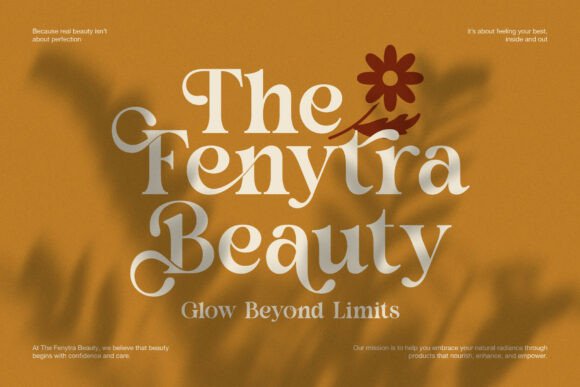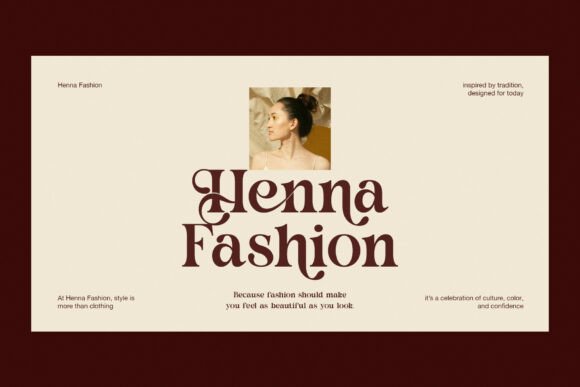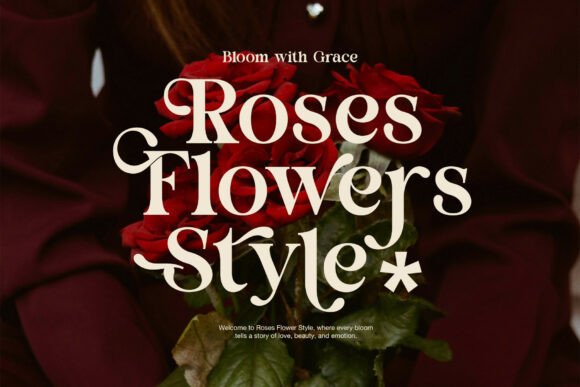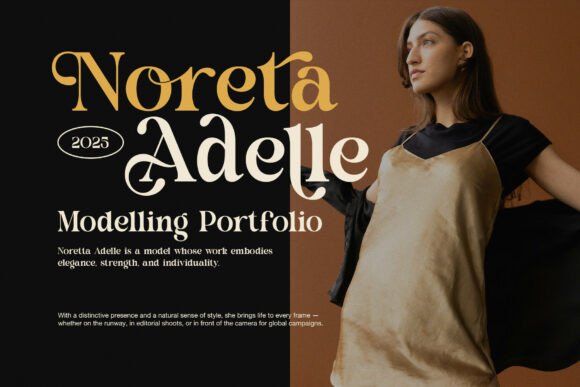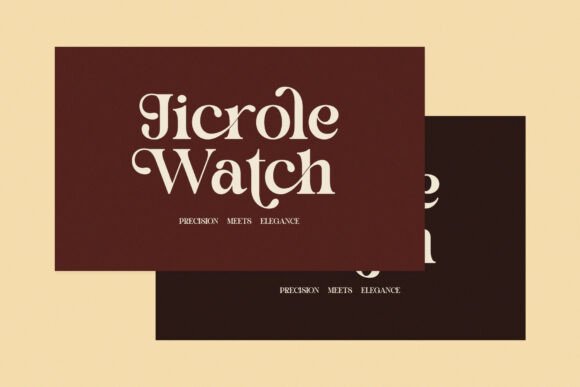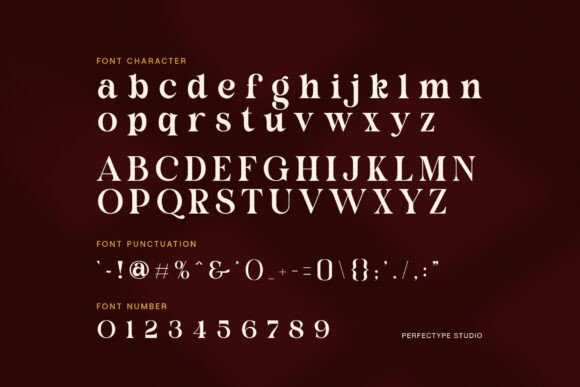
Introducing Domick Font: Elevate Your Design with Elegance and Simplicity
In the world of typography, a well-crafted font can make all the difference in conveying the intended message and aesthetic of a design. For designers and crafters seeking a typeface that embodies warmth, balance, and refined simplicity, Domick Font is an excellent choice. This elegant serif font is specifically designed to bring a touch of sophistication and calmness to various design projects, making it an ideal selection for those who value visual storytelling.
The Inspiration Behind Domick Font
Domick Font draws inspiration from modern editorials and calm visual storytelling, reflecting a perfect blend of classic and contemporary design elements. The creators of Domick aimed to craft a typeface that not only pays homage to traditional serif fonts but also incorporates smooth curves and gentle contrast. This thoughtful design approach results in typography that feels tasteful, relaxed, and quietly confident, making Domick suitable for a wide range of applications.
Key Features of Domick Font
One of the standout features of Domick Font is its soft letterforms that flow naturally across words and sentences. This smooth rhythm is crucial in creating an inviting and approachable feel, especially in headlines. Unlike rigid typefaces that can come off as formal or intimidating, Domick’s gentle flow makes it perfect for designers looking to add a touch of warmth and personality to their work.
Another significant advantage of Domick Font is its readability. Even when used in longer paragraphs, the font remains clear and easy to read. This versatility allows designers to apply Domick to both display text and supporting content with ease, making it a practical choice for a variety of projects, from editorials and magazines to websites and marketing materials.
Blending Classic Structure with Modern Twists
Domick Font successfully blends the classic structure of serif fonts with modern twists, making it a unique addition to any designer’s toolkit. The classic serif structure provides a sense of tradition and reliability, while the smooth curves and gentle contrast inject a modern and fresh feel. This blend of old and new results in a typeface that feels both timeless and contemporary, offering the best of both worlds.
Applications of Domick Font
The applications of Domick Font are vast and varied. Designers can use it to create elegant and sophisticated editorials, attention-grabbing headlines, and even detailed body text. The font’s versatility makes it suitable for both digital and print projects, including:
• Magazines and newspapers
• Websites and blogs
• Marketing materials and brochures
• Packaging and branding
• Editorials and novels
Why Choose Domick Font?
For designers and crafters looking for a typeface that combines elegance, simplicity, and readability, Domick Font is an excellent choice. Its unique blend of classic and modern design elements, along with its smooth rhythm and gentle contrast, make it a versatile and practical option. Whether you’re working on a high-end editorial, a sophisticated brand identity, or a compelling website, Domick Font can help elevate your design to the next level.
In conclusion, Domick Font offers a refreshing take on serif typography, bringing a sense of warmth, balance, and refined simplicity to the world of design. Its elegant structure, smooth curves, and gentle contrast make it an ideal choice for designers seeking to create visually appealing and engaging content. With Domick Font, you can add a touch of sophistication and calmness to your designs, making it a valuable addition to your typographic toolkit.